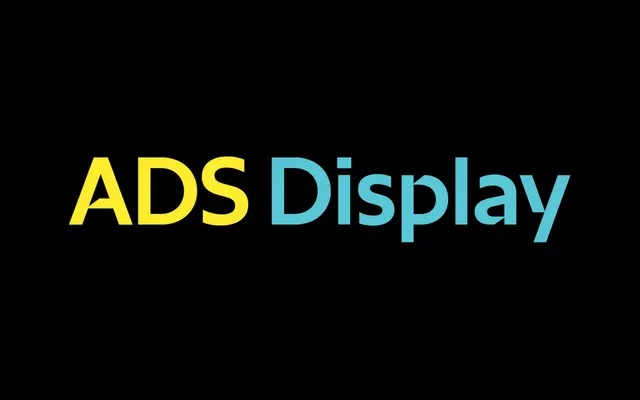
A display sans from Fable with minimal available detail, suggesting a focused single-weight offering for headline and identity use.
Released by Fable, ADS appears to be a display typeface aimed at headline and branding contexts. Very little descriptive content is available from the page, limiting deeper assessment of its character or intended use. The foundry's broader output suggests a considered, design-led approach to type.
ADS appears to be a display-oriented sans-serif, likely geometric or stylised in character, suited to headline and identity use based on its single-weight, uppercase-focused presentation typical of foundry display offerings.